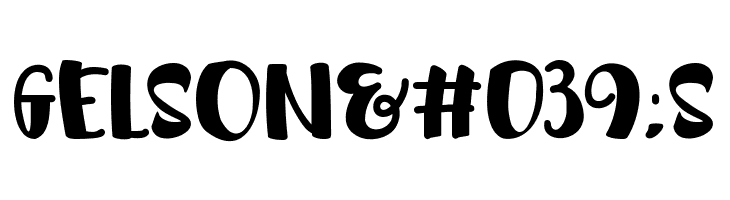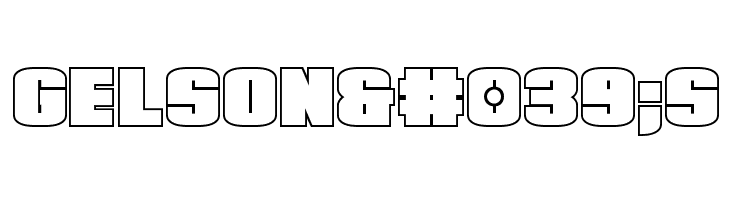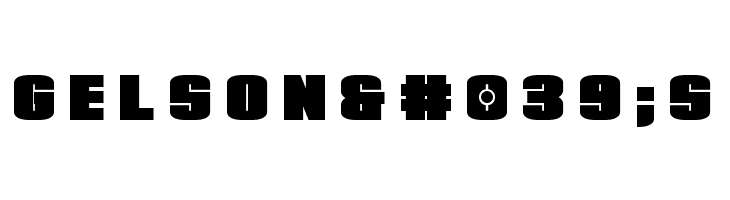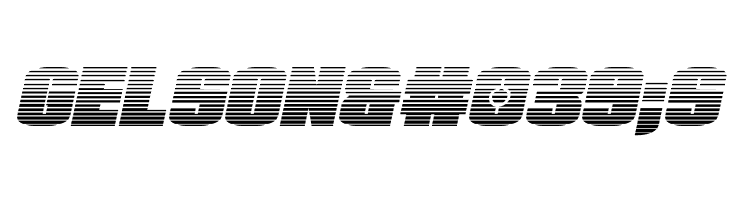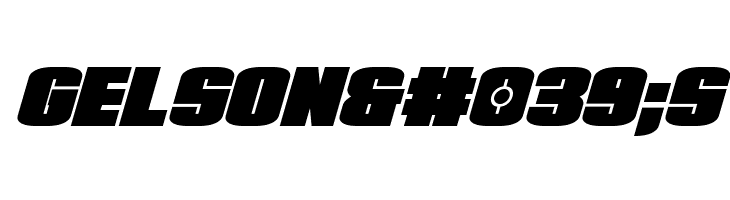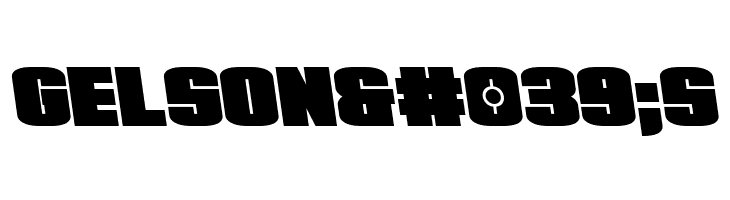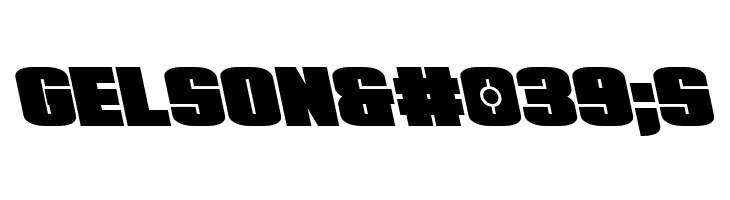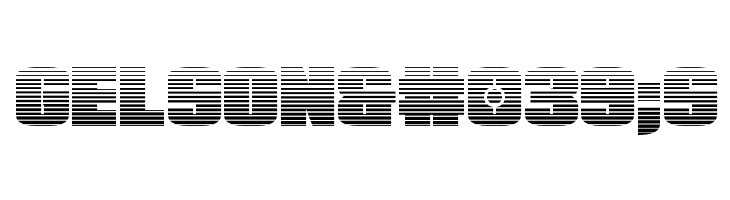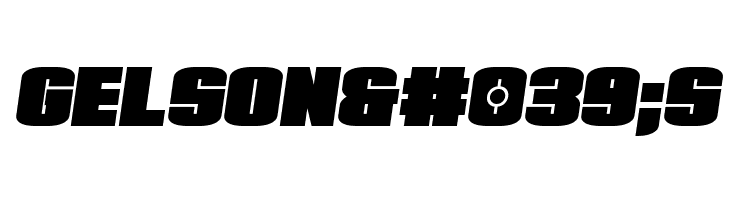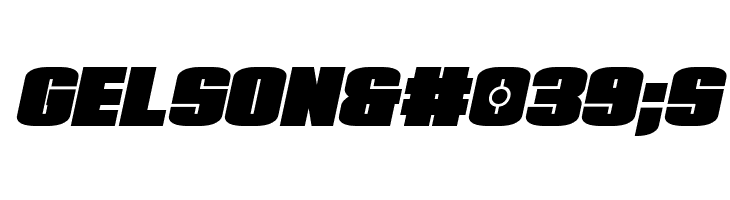
A bold, decorative font with a gradient effect created by horizontal lines.
A bold, italicized font with a gradient effect and dynamic horizontal lines.
A bold, halftone-effect font with a modern and dynamic style.
Bold, italic font with a halftone effect, offering a dynamic and modern style.
A bold, italicized font with thick strokes and a dynamic, modern style.
A bold, slanted font with a strong, modern presence.
A bold, outlined font with a geometric, blocky style.
Bold, italicized outline font with a modern and dynamic style.
A bold, semi-italic font with wide, block-like characters.
Bold, blocky font with a slight slant, ideal for impactful headlines.
A bold, italicized font with high contrast and a dynamic, energetic style.
A bold, blocky font with strong geometric shapes and minimal contrast.
A bold, italicized font with a strong, dynamic presence and tight spacing.
( Fonts by www.kimberlygeswein.com - Kimberly Geswein )
A playful, handwritten font with a casual and friendly appearance.
( Fonts by Levi Halmos )
A bold, modern font with geometric and angular design elements.
( Fonts by Levi Halmos )
A bold, modern font with thick strokes and unique character shapes.
( Fonts by Levi Halmos )
A bold, italic font with dynamic strokes and sharp angles, perfect for impactful designs.
( Fonts by Jujun Gag )
A playful, bold font with rounded, whimsical strokes.
A bold, blackletter-inspired font with ornate and dramatic letterforms.
( Fonts by www.theboutons.com - Gary David Bouton )
A playful decorative font with whimsical symbols and icons.
A playful, bold font with a hand-drawn, whimsical style.
( Lene Arensdorff )
A modern, rounded font with geometric and playful elements.
A playful, rounded font with bold strokes and a friendly appearance.
A fluid, elegant script font with a handwritten style.
A dynamic, handwritten font with fluid strokes and artistic flair.
A dynamic, expressive handwritten font with fluid cursive letterforms.
A dynamic, expressive handwritten font with fluid, cursive strokes.
A dynamic script font with fluid, cursive letterforms and a handwritten aesthetic.